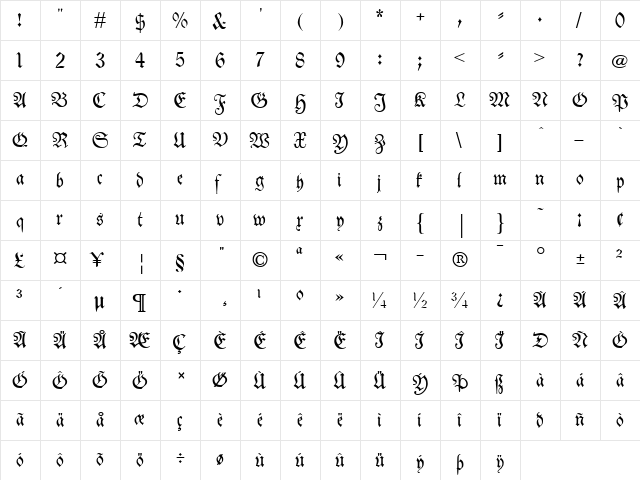
Neue Theuerdank Fraktur UNZ1 Regular
Design Context for Neue Theuerdank Fraktur UNZ1 Typeface
Neue Theuerdank Fraktur UNZ1 channels the dramatic heritage of Fraktur and Gothic scripts, bringing a sense of historical gravitas to any design.
A natural fit for music packaging, gothic editorial design, and any project that needs historical weight.
Font Pairing: Pair with a clean neutral sans-serif for body copy to let Neue Theuerdank Fraktur UNZ1's character lead without overwhelming the composition.
Pro Tip: Reserve Neue Theuerdank Fraktur UNZ1 for display and logo use — pair it with a clean sans-serif for body copy to prevent the composition from feeling oppressive.